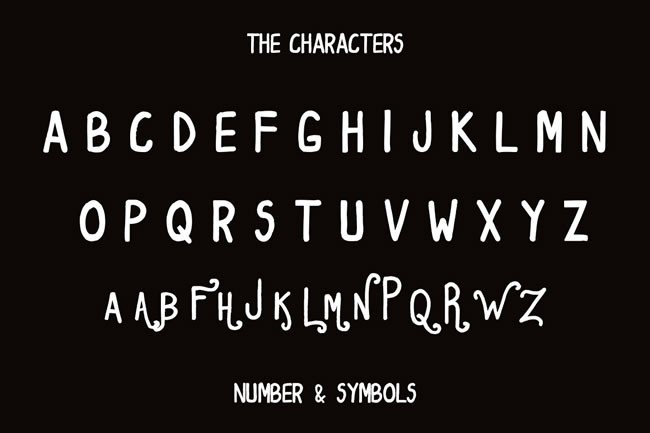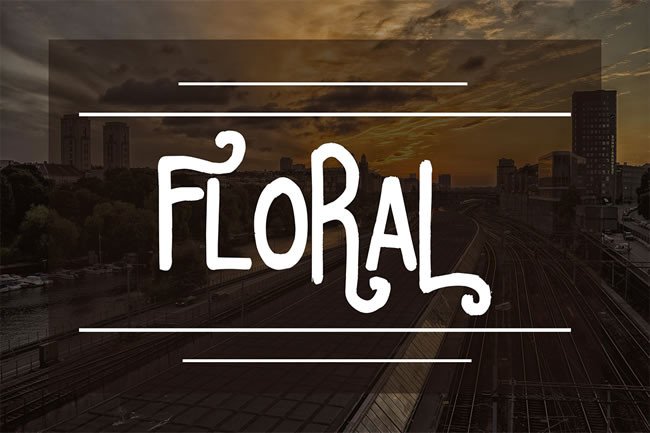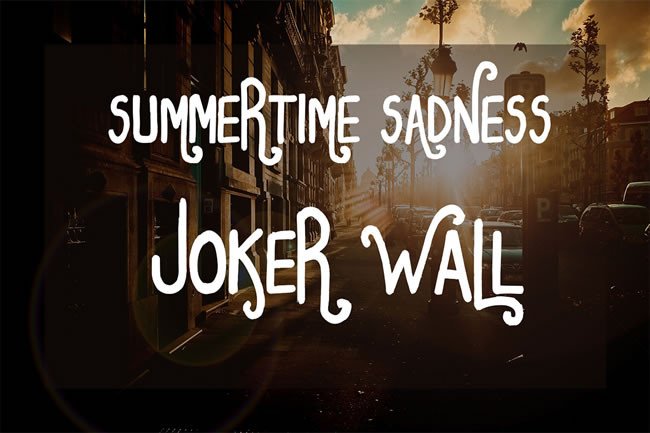
Permanent Font
About Permanent Font
‘Permanent’ is a new, handmade, fresh & playful typeface! Perfect for designing invitations, greeting cards, branding materials, business cards, quotes, posters, and more!